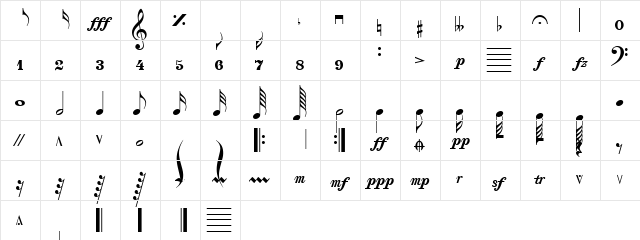
PT Cadenza Normal
Design Context for PT Cadenza Typeface
PT Cadenza offers clean, dependable letterforms without strong stylistic allegiance, making it a practical choice for designers who need flexibility.